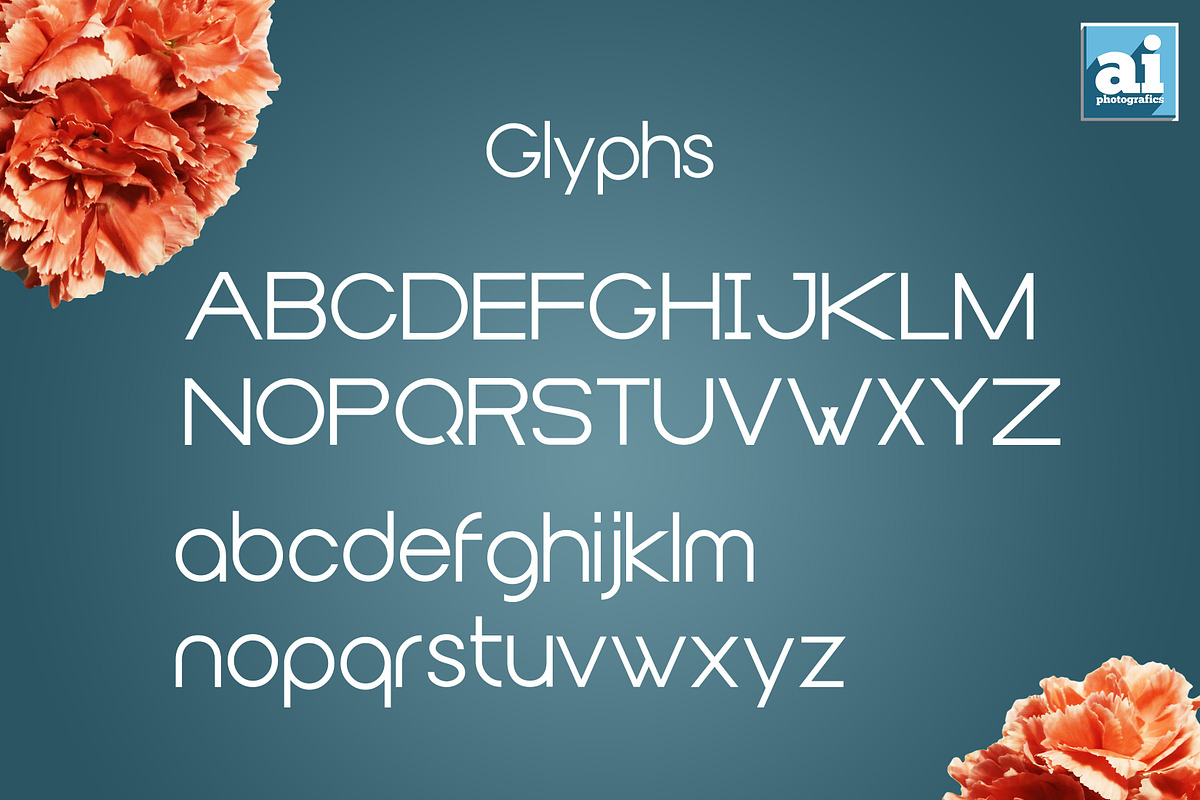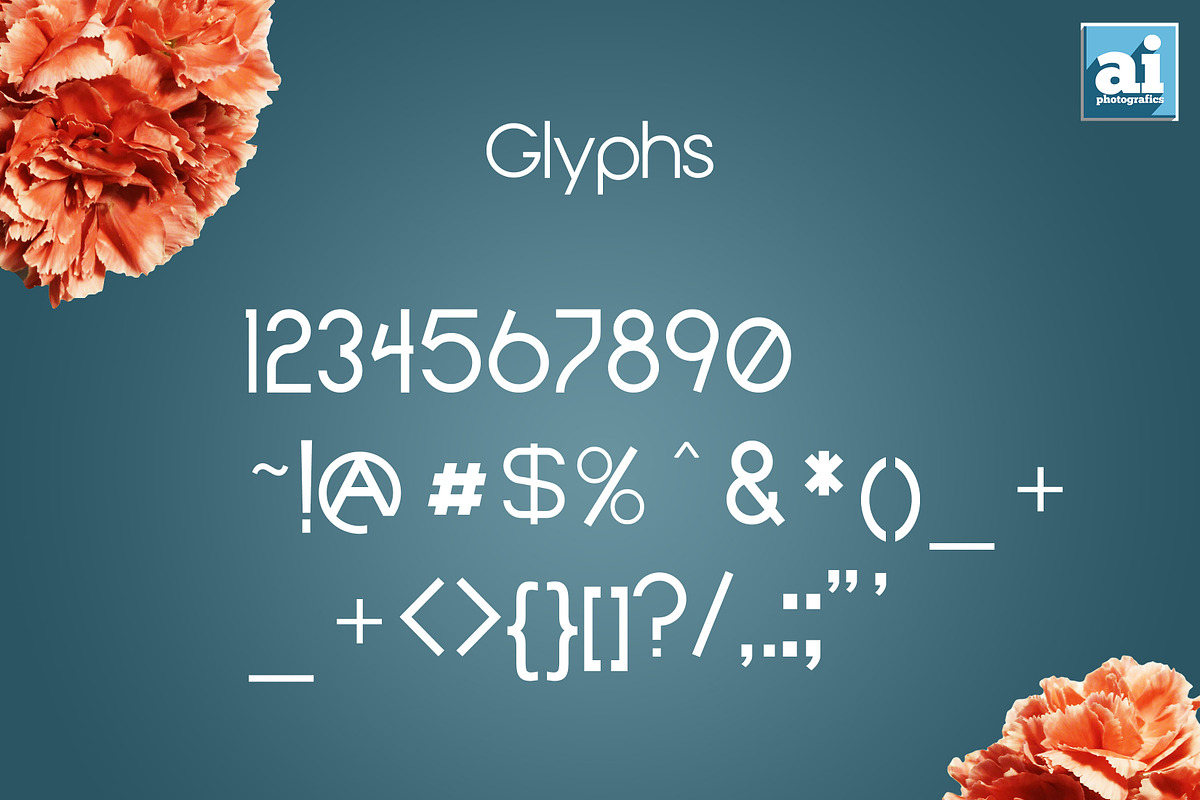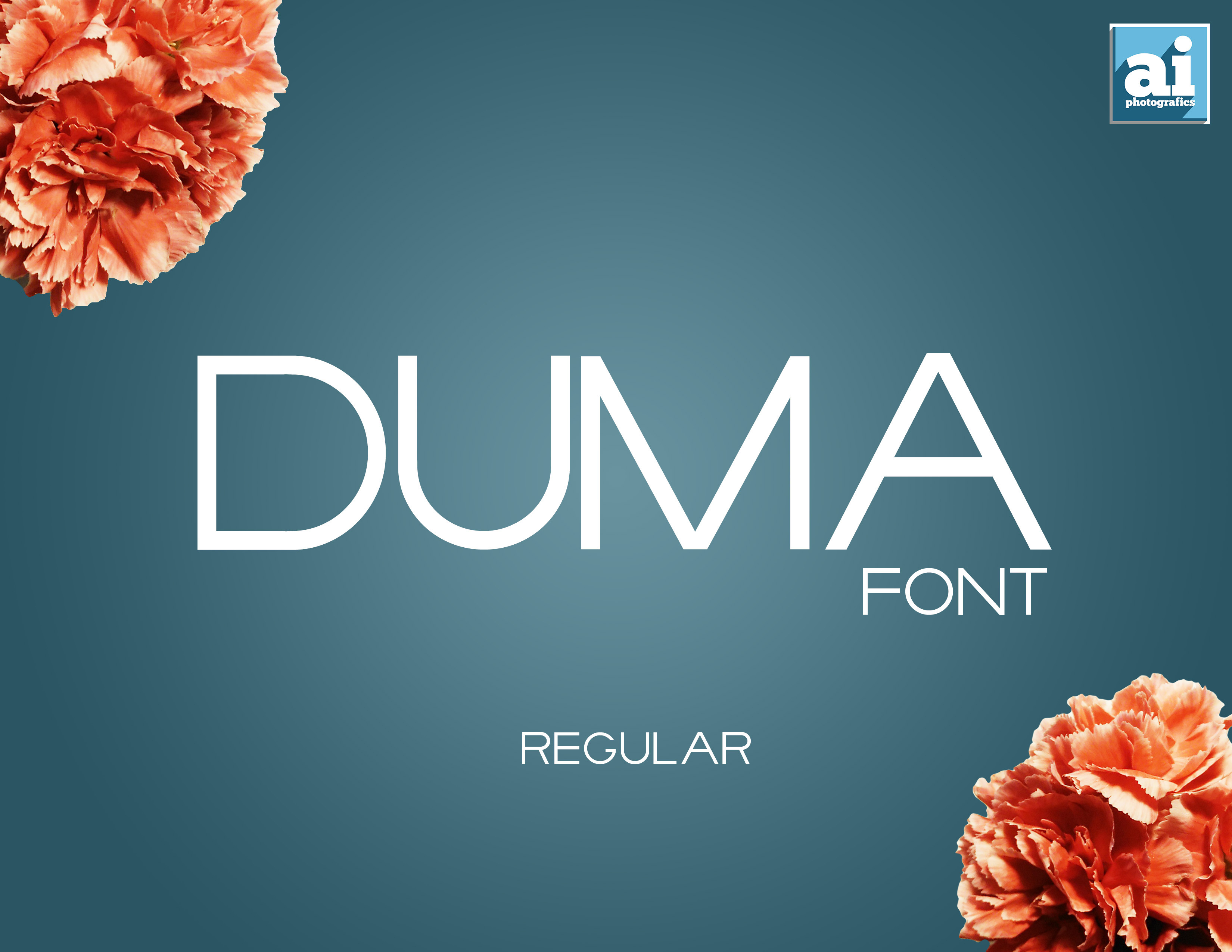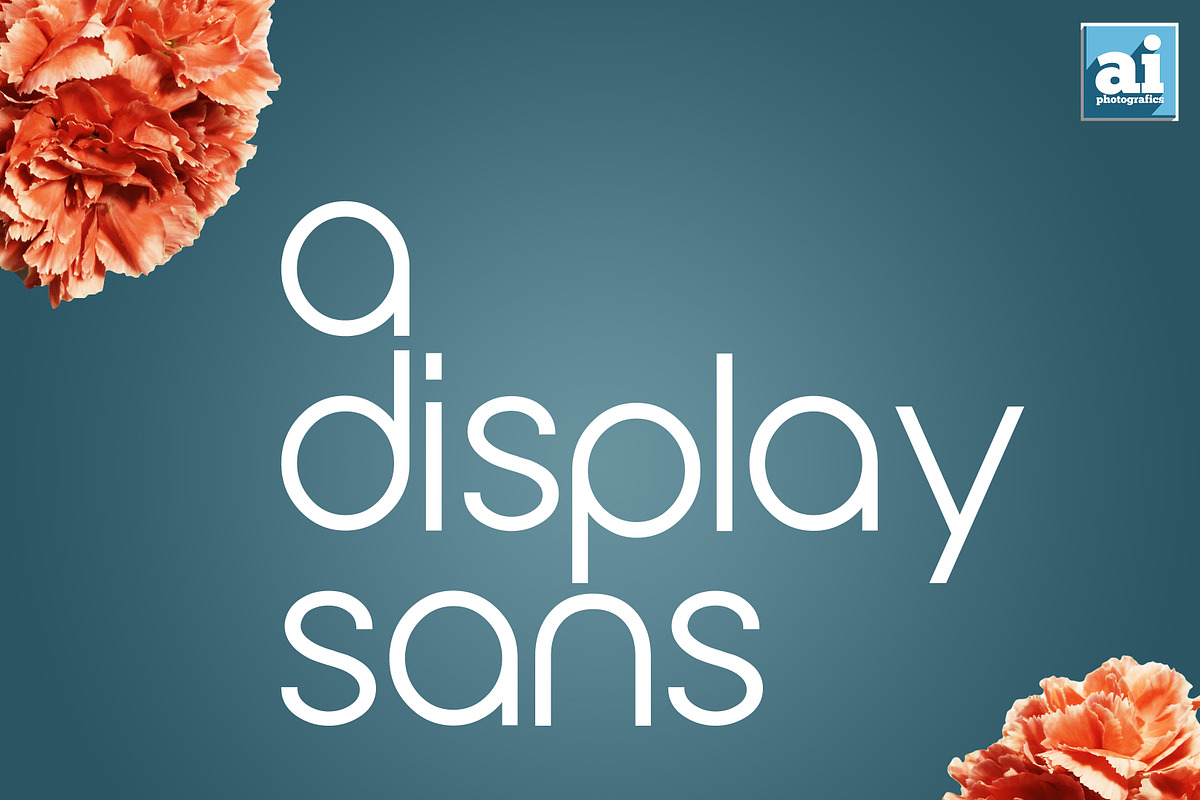
Duma Font
Duma font is a display sans that is characterized with long legs and basic geometric shapes. I'm creating five styles to it: Regular, Bold, Inline, Thin, Tribe. I will release the other styles shortly. This is Duma font Regular. Enjoy and thank your for your support.